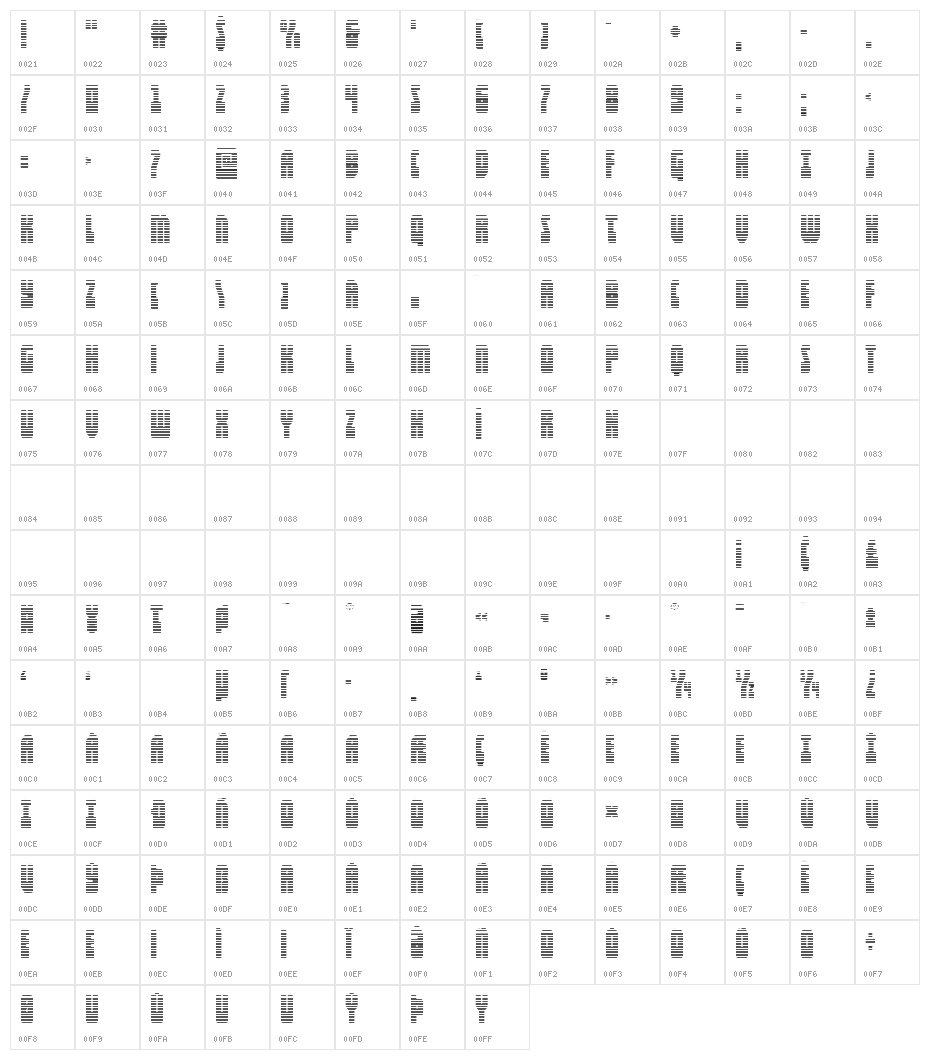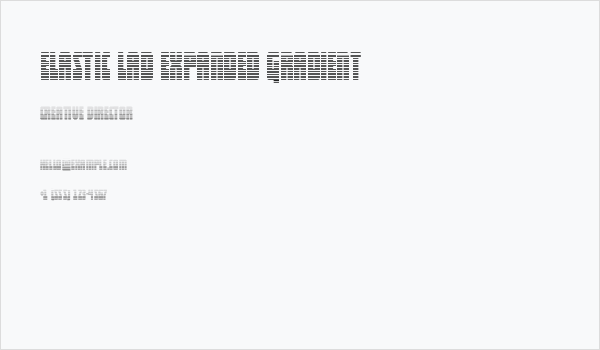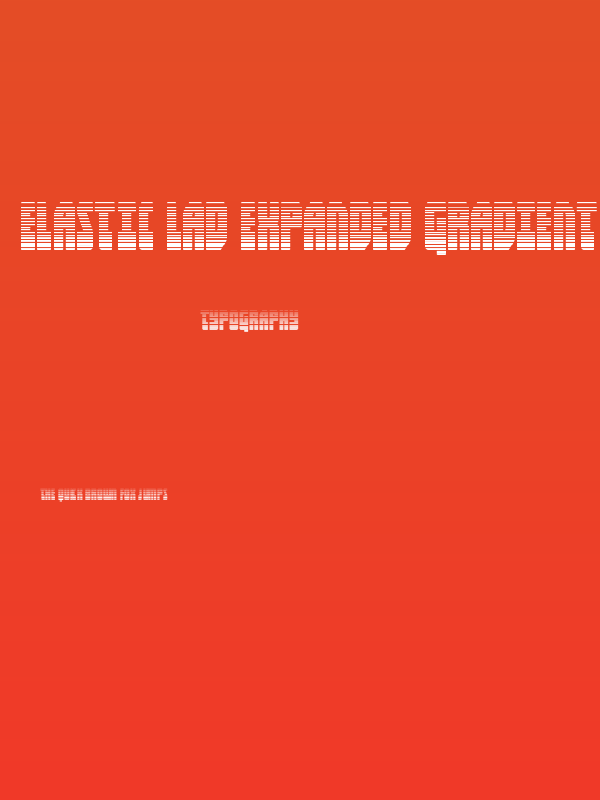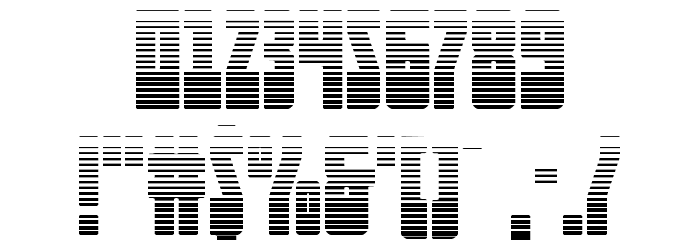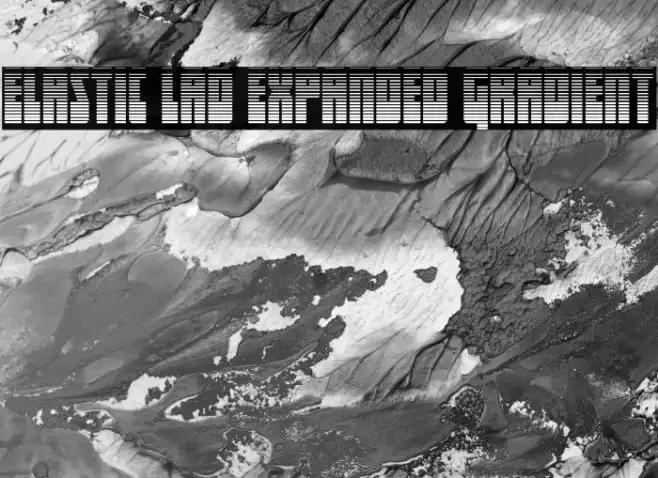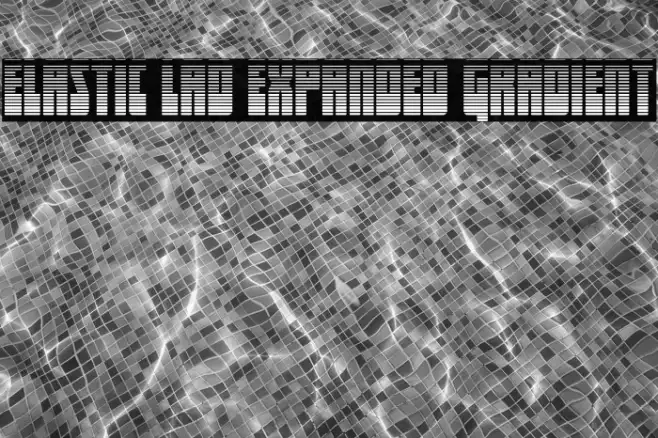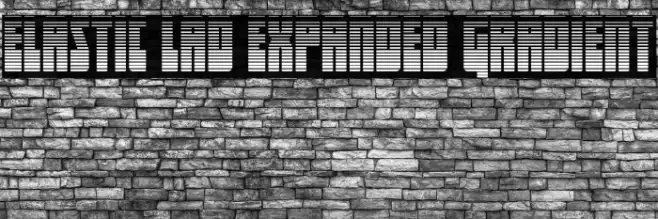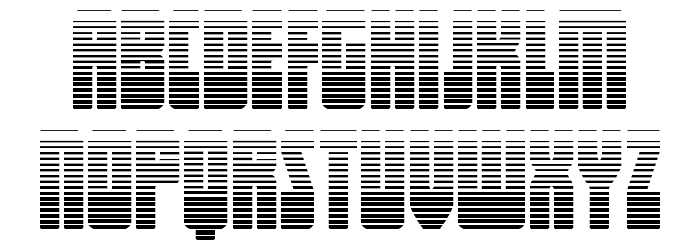
Elastic Lad Expanded Gradient Font
Elastic Lad Expanded Gradient Description
This font features a unique design characterized by horizontal lines that create a gradient effect within each character. The letters are bold and expanded, giving them a strong presence. The gradient lines vary in thickness, adding a dynamic and modern touch. The uppercase and lowercase letters maintain a consistent style, while the numbers and special characters follow the same design principles. This font is visually striking and ideal for making a bold statement in any design project.
| Proposed Projects | Ideal for posters, headlines, branding, and any project requiring a bold, modern aesthetic. |